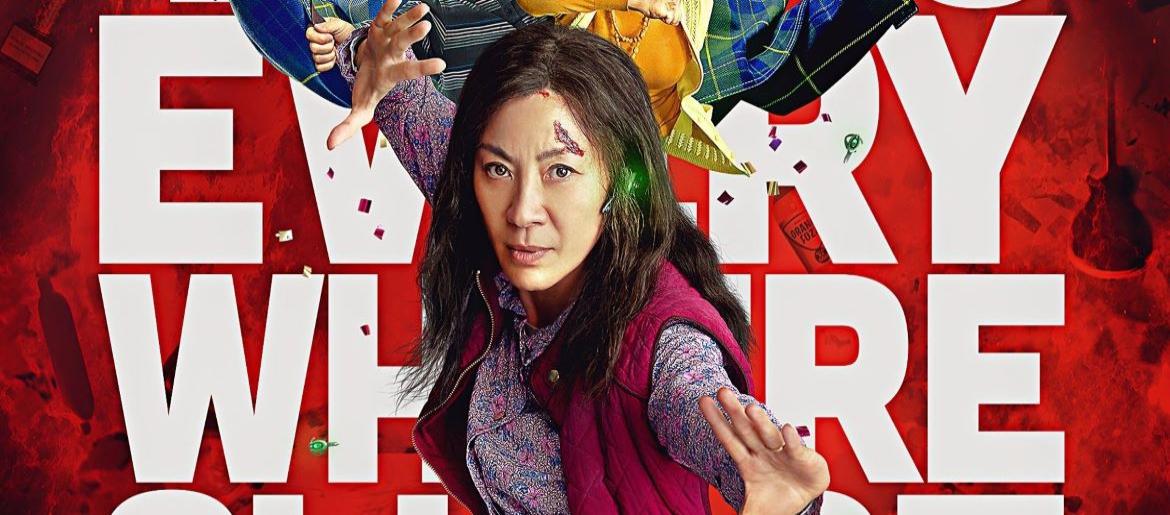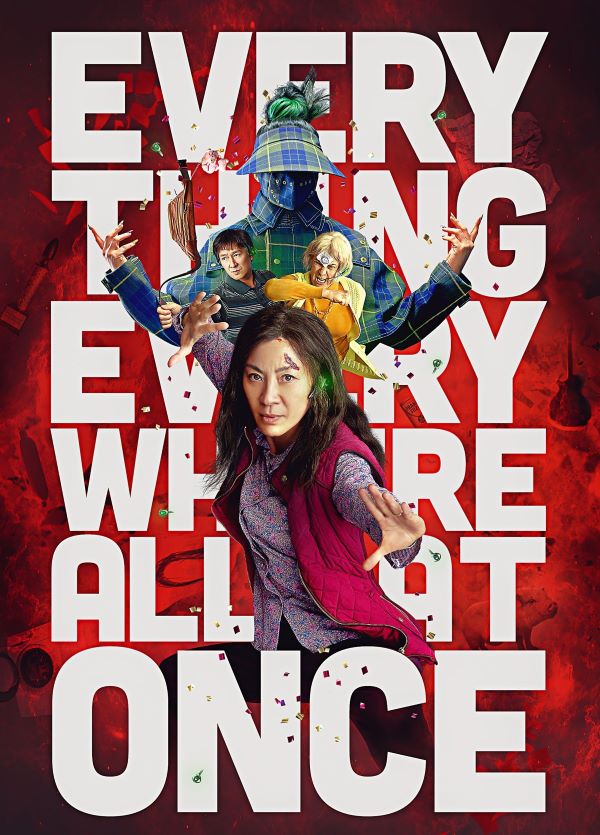
Everything Everywhere All at Once Font
What Font is Everything Everywhere All at Once?
The Everything Everywhere All at Once Font used in the film’s title is most likely the premium typeface Cubano (or the variant “Cubano Sharp”), which features bold, heavy, closely-spaced letterforms. For designers seeking a budget-friendly solution, there’s a free alternative font that captures a similar condensed, impactful display aesthetic — ideal for recreating the dramatic “everything, everywhere” visual feel of the title design.
About Everything Everywhere All at Once
Everything Everywhere All at Once (2022) is a genre-defying film directed by Daniel Kwan and Daniel Scheinert. It follows Evelyn Quan Wang, a Chinese-American laundromat owner who is swept into a wild multiverse adventure where she must confront her past, her choices, and infinite versions of herself to save the universe. The film blends action, comedy, drama and surrealism in a story about family, identity and connection — making it one of the most celebrated films of its time.